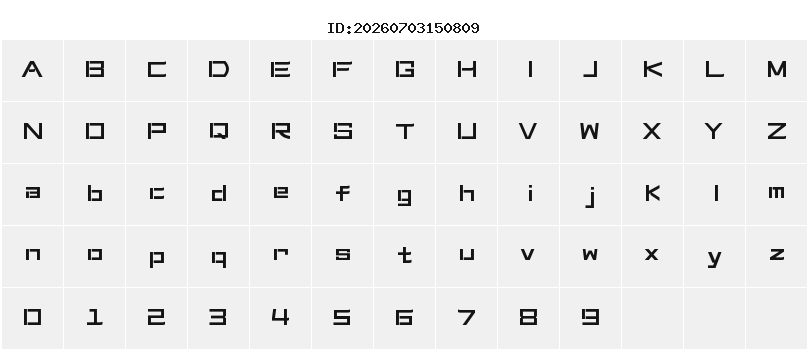
189-上首品黑体 Preview
• Font Name: 189-上首品黑体
• Font ID: 189-SS PinHei Ti:Version 4.00
• Full Font Name: 189-上首品黑体
• Version: Version 4.00 December 25, 2023
• PostScript Name: 189-SSPinHeiTi
• Character Count: 7567
• Manufacturer: 上首造字
About 189-上首品黑体.ttf
189-上首品黑体.ttf is a modern, elegant sans-serif font designed for ultimate readability and visual harmony. Perfect for branding, headlines, web design, and print materials.